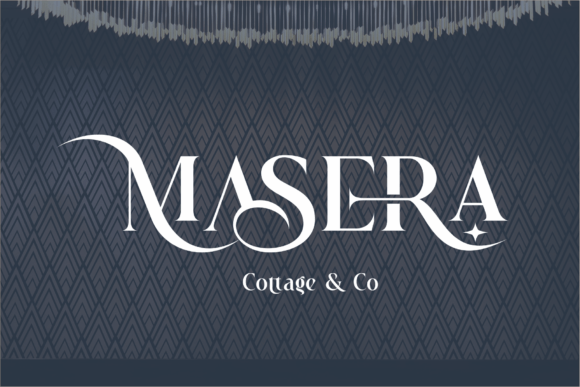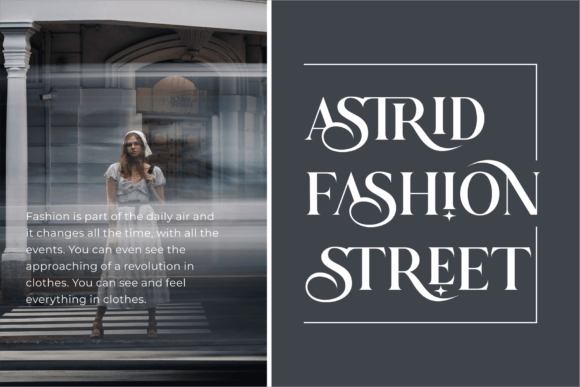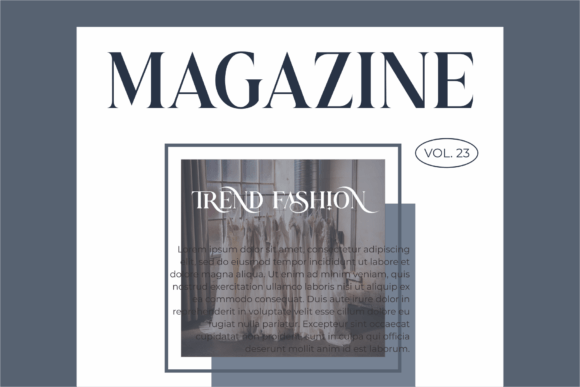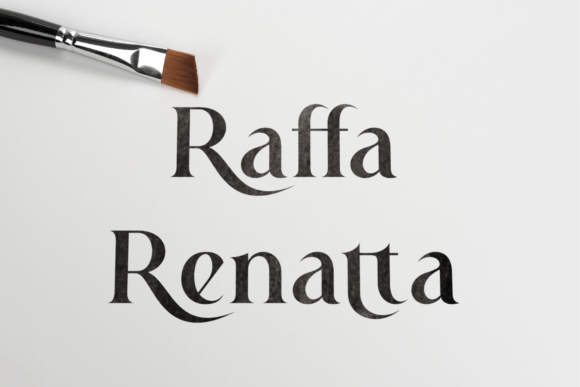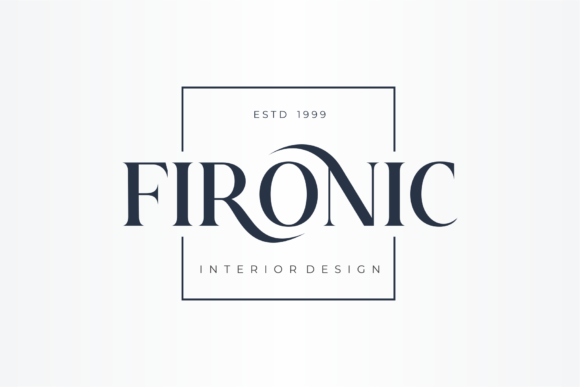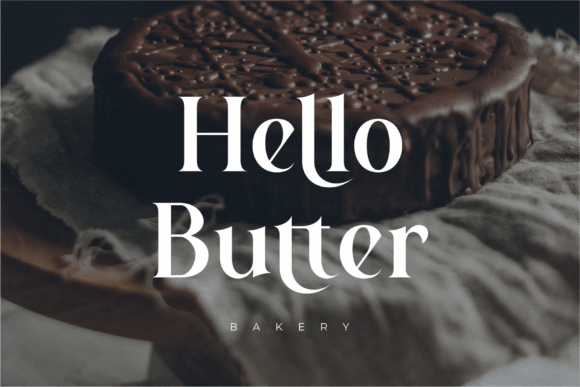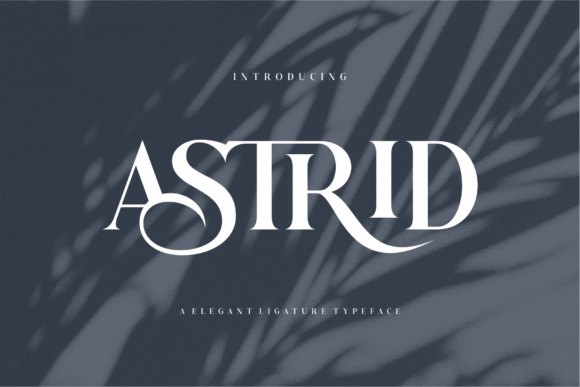
Astrid Font: Elevate Your Designs with Timeless Elegance
Astrid, a captivating serif font, blends timeless elegance with modern flair. Its graceful letterforms boast intricate serifs, imparting a sophisticated charm. Astrid’s balanced proportions and subtle curves create a harmonious rhythm, making it an ideal choice for conveying refined aesthetics in any design.
The Art of Serif Typography
Serif fonts have been a cornerstone of typography for centuries, and for good reason. These classic fonts feature small lines or flourishes at the ends of letters, which enhance readability and add a touch of sophistication to any text. Astrid takes the traditional serif font to the next level with its unique blend of classic and modern elements.
Astrid’s Unique Characteristics
Astrid’s design is characterized by its:
- Intricate serifs: Delicate and refined, Astrid’s serifs add a level of elegance to any text.
- Balanced proportions: Astrid’s letters are carefully crafted to create a harmonious balance between form and function.
- Subtle curves: Astrid’s curves are smooth and understated, creating a sense of fluidity and movement.
Why Choose Astrid Font?
Astrid font is an excellent choice for designers and crafters looking to add a touch of sophistication to their work. Here are just a few reasons why:
- Versatility: Astrid is suitable for a wide range of design applications, from luxury branding to editorial design.
- Readability: Astrid’s clear and elegant letterforms make it easy to read, even in small sizes.
- Uniqueness: Astrid’s distinctive design sets it apart from more traditional serif fonts.
Design Applications for Astrid Font
Astrid font is perfect for a variety of design projects, including:
- Luxury branding: Astrid’s sophisticated charm makes it an excellent choice for high-end brands.
- Editorial design: Astrid’s elegant design makes it suitable for magazines, newspapers, and books.
- Packaging design: Astrid’s refined aesthetic makes it perfect for product packaging and labels.
- Web design: Astrid’s clear and legible design makes it suitable for use on websites and digital platforms.
Tips for Using Astrid Font
Here are a few tips for getting the most out of Astrid font:
- Use it sparingly: Astrid’s elegance can be overwhelming if overused. Use it sparingly to create a sense of sophistication.
- Pair it with sans-serif fonts: Pairing Astrid with sans-serif fonts can create a striking contrast and add visual interest.
- Experiment with font sizes: Astrid’s clear design makes it suitable for use in a variety of font sizes.
Astrid font is a versatile and elegant serif font that can elevate any design. Its unique blend of classic and modern elements makes it perfect for designers and crafters looking to add a touch of sophistication to their work. With its intricate serifs, balanced proportions, and subtle curves, Astrid is sure to become a go-to font for anyone looking to convey refined aesthetics.